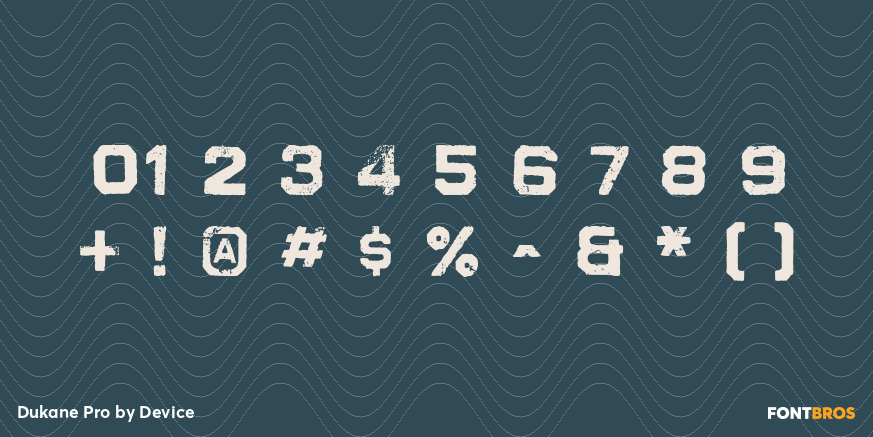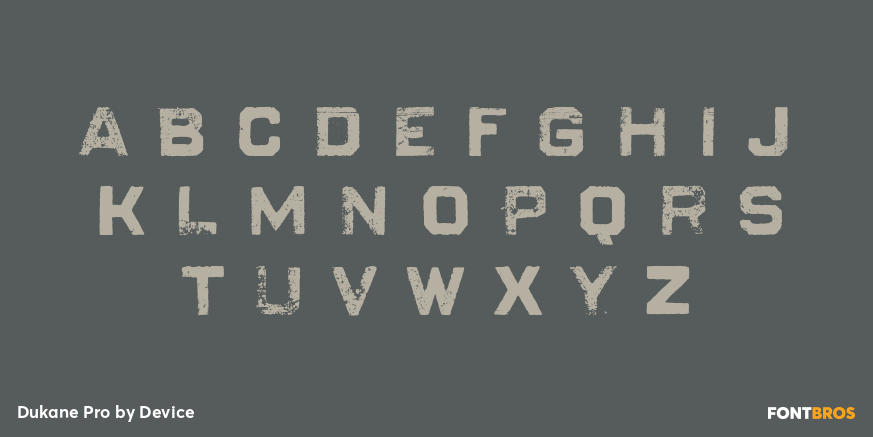
Dukane Pro
Font Family by Device
Dukane Pro is a distressed sans serif with a bold retro edge, blending Art Deco geometry with gritty urban character. Its worn texture and period-inspired shapes give it a strong vintage voice that feels pulled from old signage, posters, and industrial ephemera rather than polished modern display type.
That mix of historical style and roughened detail makes it a smart choice for headline work, poster design, packaging, branding, and other display uses that need atmosphere as much as clarity. If you want lettering that leans into 1920s–1960s references while keeping a tougher, more weathered presence, this single-style release from Device offers a focused, distinctive look.